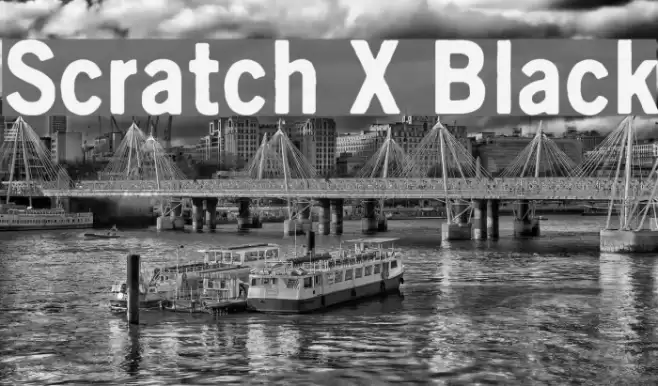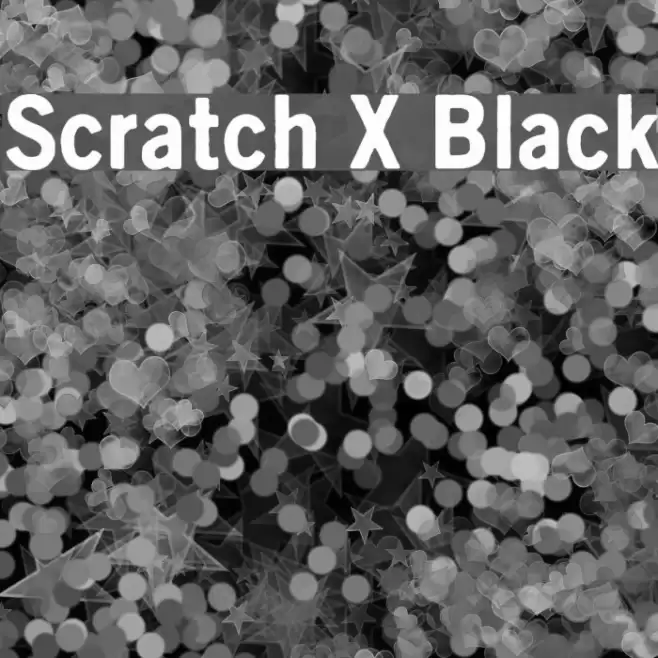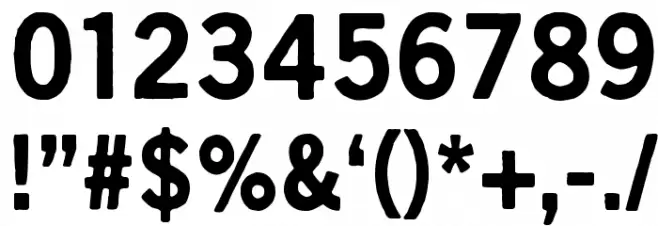
Scratch X Black Font
Scratch X Black Description
This font features a bold and rugged appearance with a slightly distressed texture, giving it a handcrafted feel. The characters are thick and robust, making them highly legible and impactful. The uppercase and lowercase letters maintain a consistent weight, while the numerals and special characters integrate seamlessly with the overall design. The font's boldness and slight irregularities in the strokes add a unique character, making it suitable for projects that require a strong visual presence.
A bold, rugged font with a distressed, handcrafted look from Uncategorized fonts.